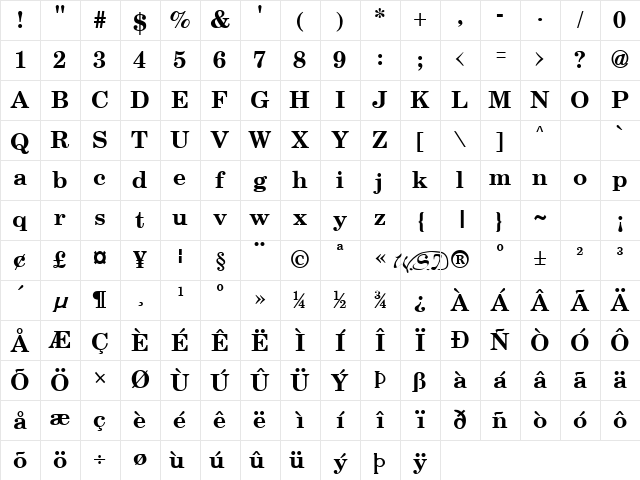
Schoolbook Bold Free Font
Schoolbook Bold
Schoolbook Family
Schoolbook Bold
Complete Schoolbook Bold glyph index. Displaying only characters natively supported by Schoolbook Bold font.
Design Context for Schoolbook
Schoolbook is a composed and adaptable typeface that performs quietly and consistently across a wide range of design contexts. Its bold stroke weight gives it real presence on the page.